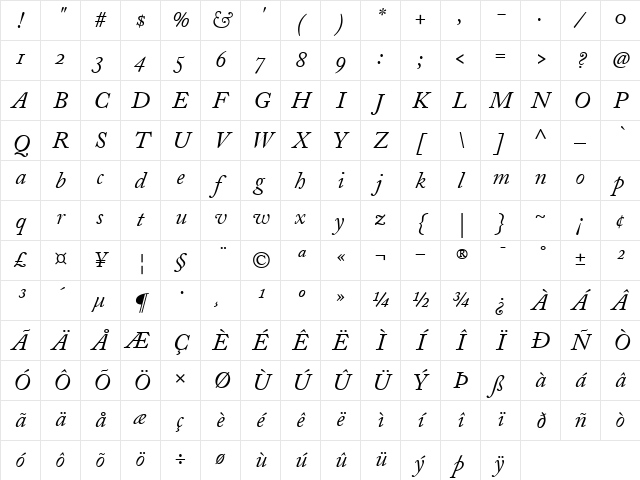
Complete AdobeCaslonOldstyleFigures RomanItalic glyph index. Displaying only characters natively supported by AdobeCaslonOldstyleFigures RomanItalic font.
AdobeCaslonOldstyleFigures carries the refined structure of traditional serif typography, with bracketed terminals and considered proportions that communicate credibility and craft. The slanted form adds forward momentum and visual energy.